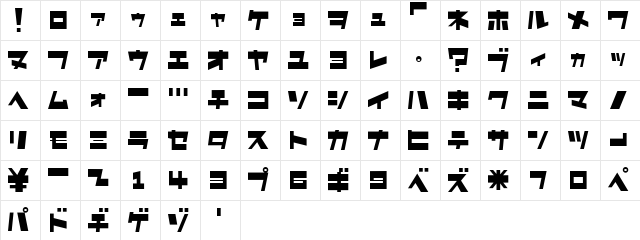
Complete Yippee!!! Italic glyph index. Displaying only characters natively supported by Yippee!!! Italic font.
Yippee!!! is a composed and adaptable typeface that performs quietly and consistently across a wide range of design contexts. The slanted form adds forward momentum and visual energy.